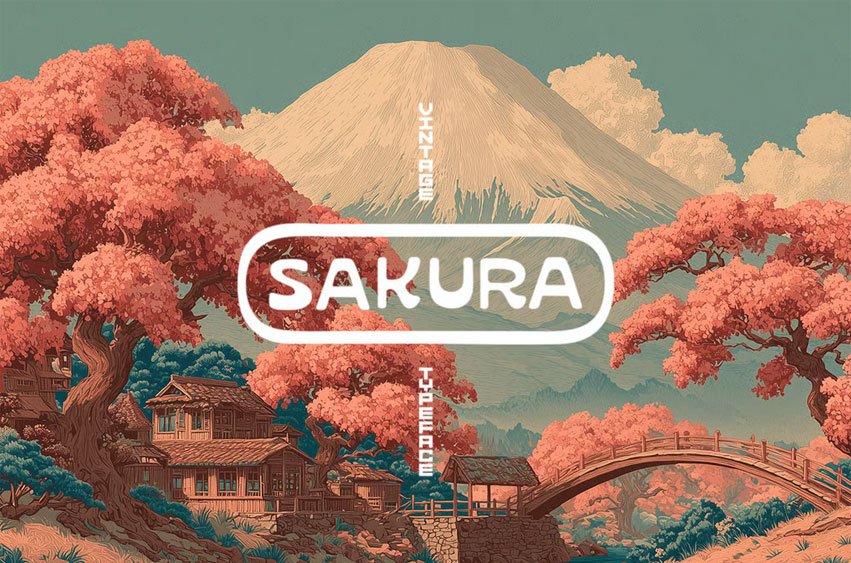
Sakura Typeface Font is a cute retro font with two style options. Every letter has a unique and beautiful touch, which will make your design come alive!
Crafted with high attention to detail, it gives you the best design experience.